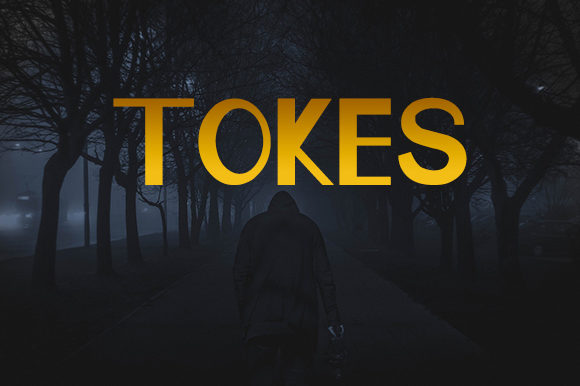
Unleash your creativity with Tokes Font, a timeless sans serif font that captivates with its quirky letters and distinct style. Designed by the talented Yaroslav Matveev, Tokes is not just a font; it's an expression of individuality and artistic flair.
Immerse yourself in the world of Tokes and discover a font that oozes personality. Its playful curves and sharp angles dance together in perfect harmony, creating a visual spectacle that demands attention.
With Tokes, you have the power to transform your designs into masterpieces. Whether you're crafting logos, branding materials, or eye-catching headlines, Tokes will elevate your work to new heights of sophistication.
Tokes is more than just a font; it's a versatile companion that adapts seamlessly to your creative vision. Its timeless appeal shines through in both traditional and contemporary designs, making it the perfect choice for projects of all kinds.
As you explore the depths of Tokes, you'll uncover a world of endless possibilities. Its quirky letters add a touch of whimsy, while its sharp angles inject a dose of modernity. Together, they create a font that is both playful and polished.
Tokes is not just a font; it's an experience. A journey into the realm of creativity, where your imagination runs wild and your designs come to life. Embrace the allure of Tokes and embark on a creative adventure that will leave you breathless.